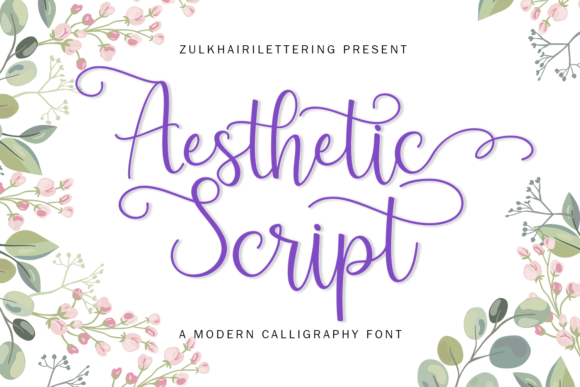
The Perfect Font for the Perfect Design
Have you ever stared at a blank page, trying to find the perfect font to match your creative vision? You know, that elusive combination of elegance and modernity that elevates your design from good to great? That’s where the Aesthetic Font comes in – a beautiful and refined script font that’s about to become your new best friend.
Aesthetic Font is the perfect solution for designers who want to create a classy, elegant, and modern look for their logos, branding, invitations, stationery, wedding designs, social media posts, and more. With its PUA-encoded glyphs and swashes, you’ll have access to a world of design possibilities that will make your creations stand out from the crowd. Whether you’re a seasoned pro or a design newbie, the Aesthetic Font is an invaluable tool that will take your designs to the next level.
Aesthetic Font Key Features
- Unique Characteristics: The font features a unique blend of modern and classic elements, with intricate details and subtle flourishes that add a touch of sophistication and elegance to any design.
- Font Pairing: Aesthetic Font is designed to pair well with a variety of other fonts, making it easy to create visually appealing and harmonious typography in any design project.
Aesthetic Font Review
Overall, I was really excited to try out the Aesthetic Font. I’ve seen it used in various design projects and was curious to see if it lived up to the hype. Here are my thoughts:
- Unique style: The Aesthetic Font has a distinct, modern aesthetic that can add a touch of sophistication to any design.
- Legibility: Despite its decorative nature, the font is still highly legible, making it a great choice for body text.
- Customization options: The font comes with a range of weights and styles, allowing you to customize it to fit your design needs.
- Readability at small sizes: While the font is legible, it can become difficult to read at very small sizes.
- Lack of support for certain languages: Unfortunately, the font doesn’t support certain languages, which can limit its use in multilingual designs.
Overall, I think the Aesthetic Font is a great choice for designers looking for a unique, modern aesthetic. While it has some limitations, its customization options and legibility make it a solid choice for a wide range of design projects.
For a more polished look, pair Aesthetic Font with a neutral background color and a subtle texture.
For a more dramatic effect, use Aesthetic Font in combination with bold lines and vibrant colors.
For a more professional look, pair Aesthetic Font with a clean and simple design.
Aesthetic Font is ideal for:
- Blog posts and articles
- Social media graphics
Remember to experiment with different font sizes, colors, and styles to find the perfect look for your project.
Alternatives to Aesthetic Font
Playfair Display is an elegant, high-end serif font ideal for luxury branding, high-end fashion, and fine art. Its intricate details and classical feel evoke a sense of sophistication and refinement. Unlike Aesthetic Font, which is more minimalist and modern, Playfair Display is perfect for creating a vintage or antique atmosphere.
Great Vibes is a beautiful, handwritten font that exudes creativity and playfulness. Suitable for creative projects, entertainment, and events, it adds a touch of whimsy and personality to any design. Compared to Aesthetic Font, Great Vibes is more expressive and free-flowing, making it ideal for projects that require a more organic feel.